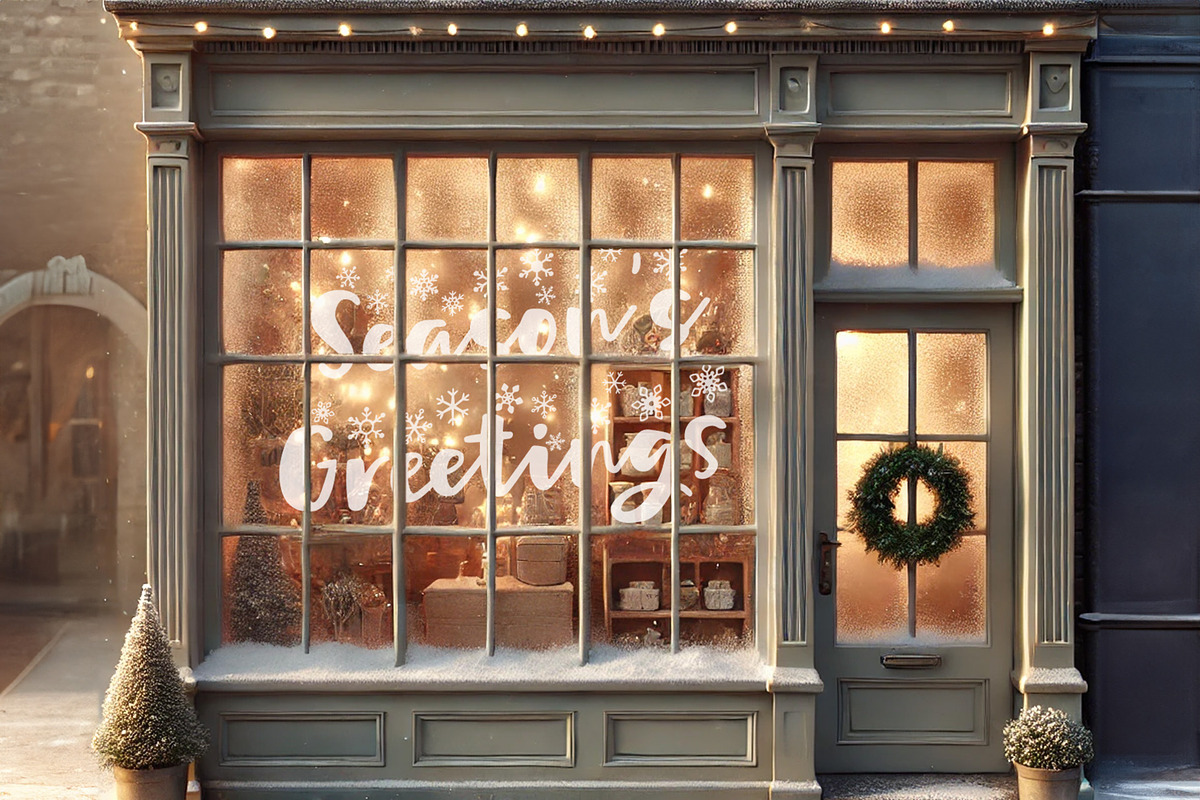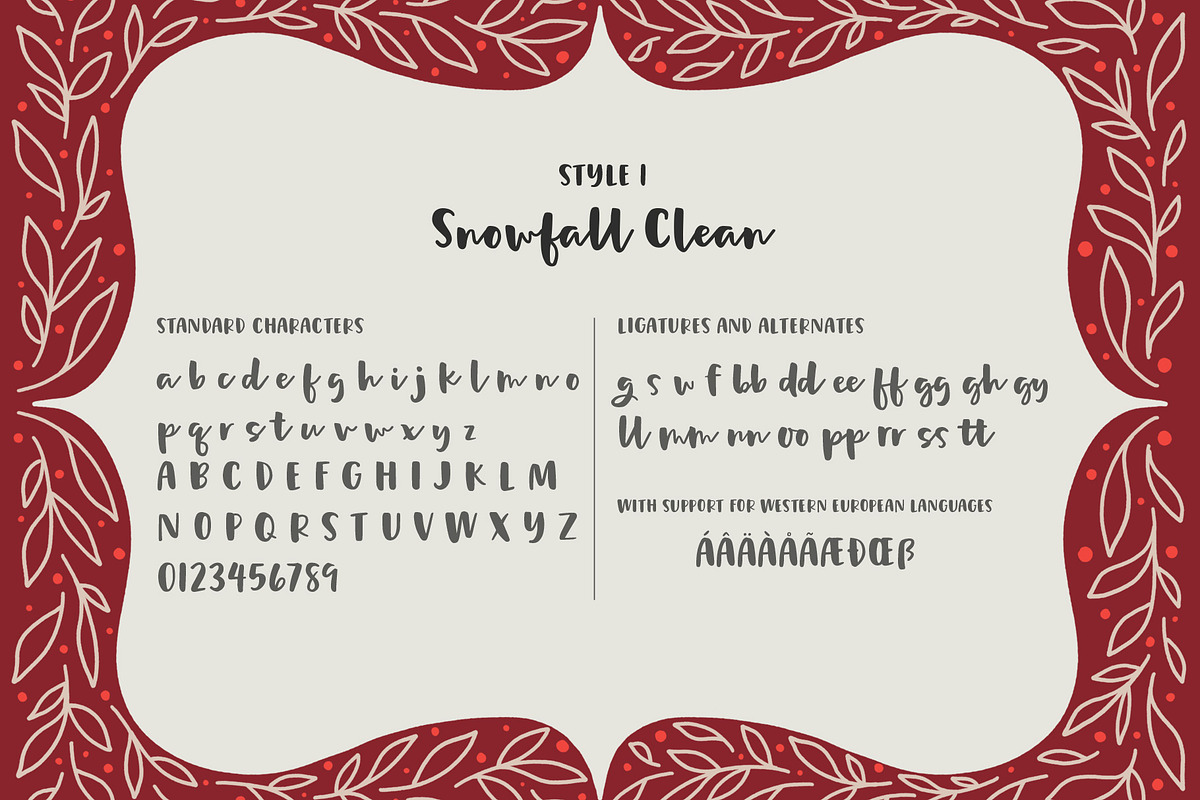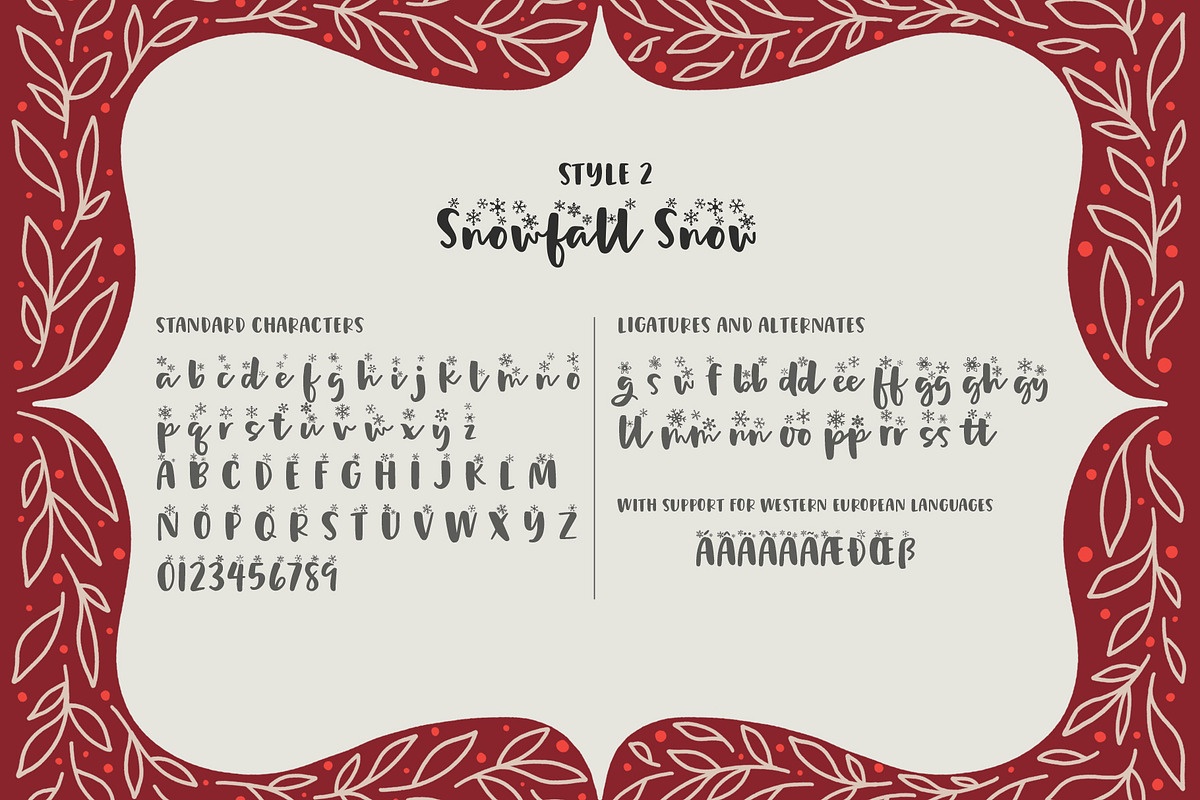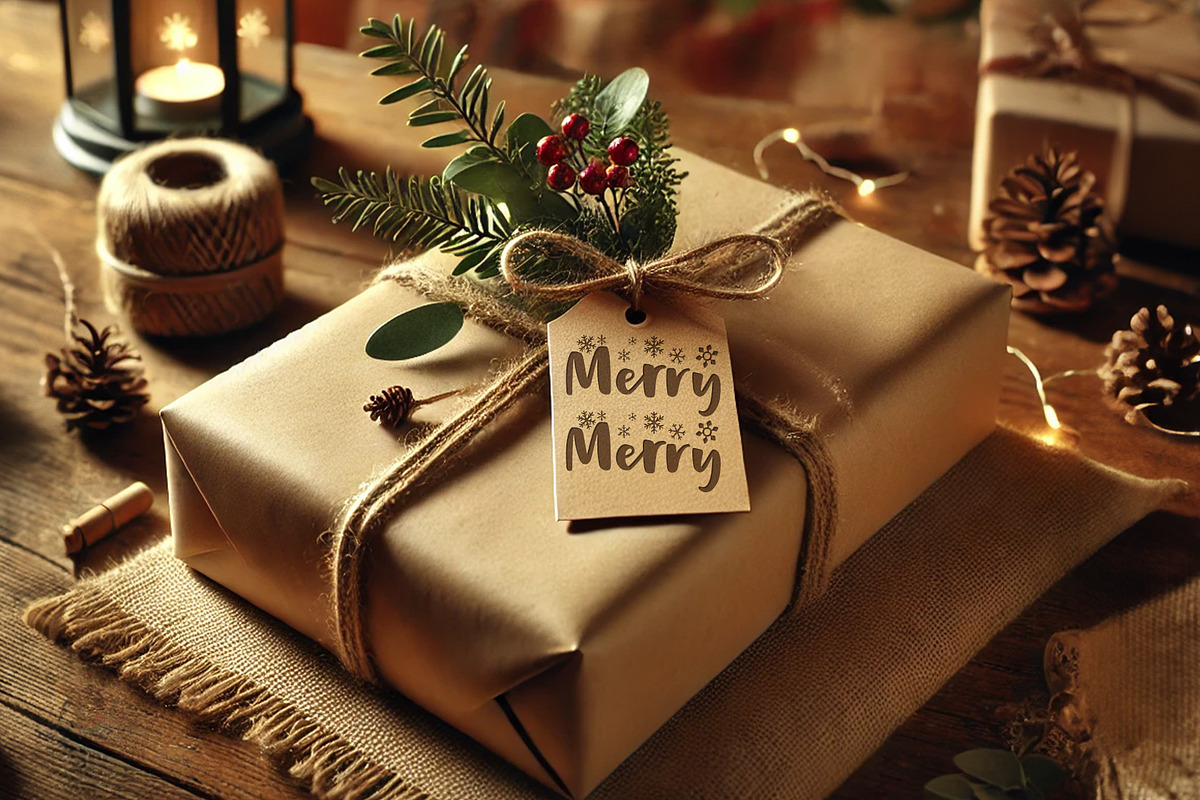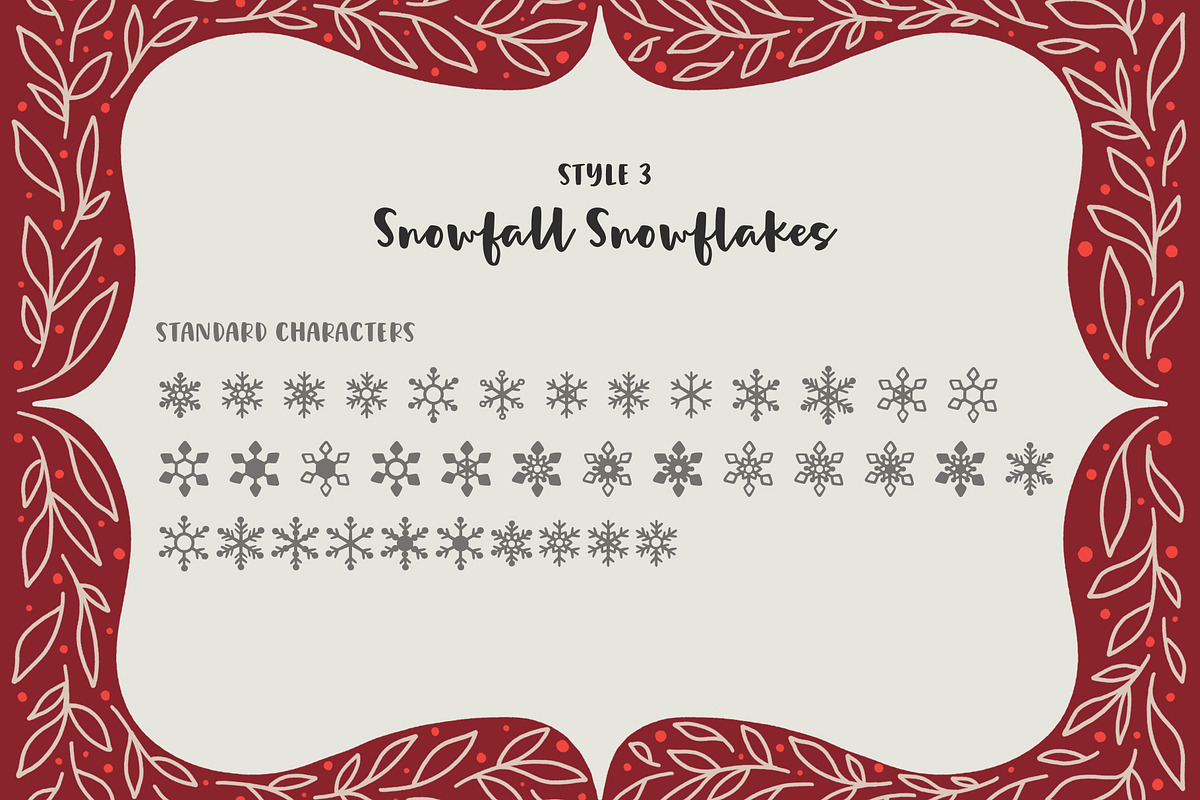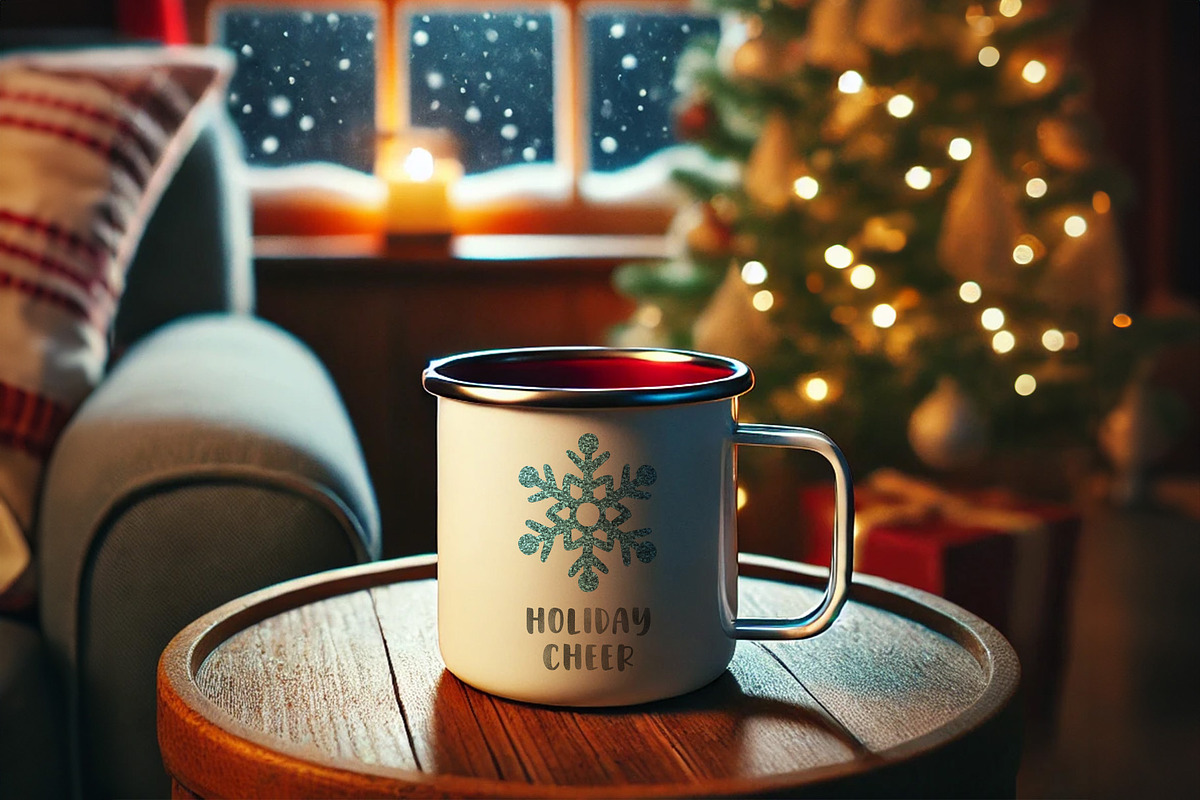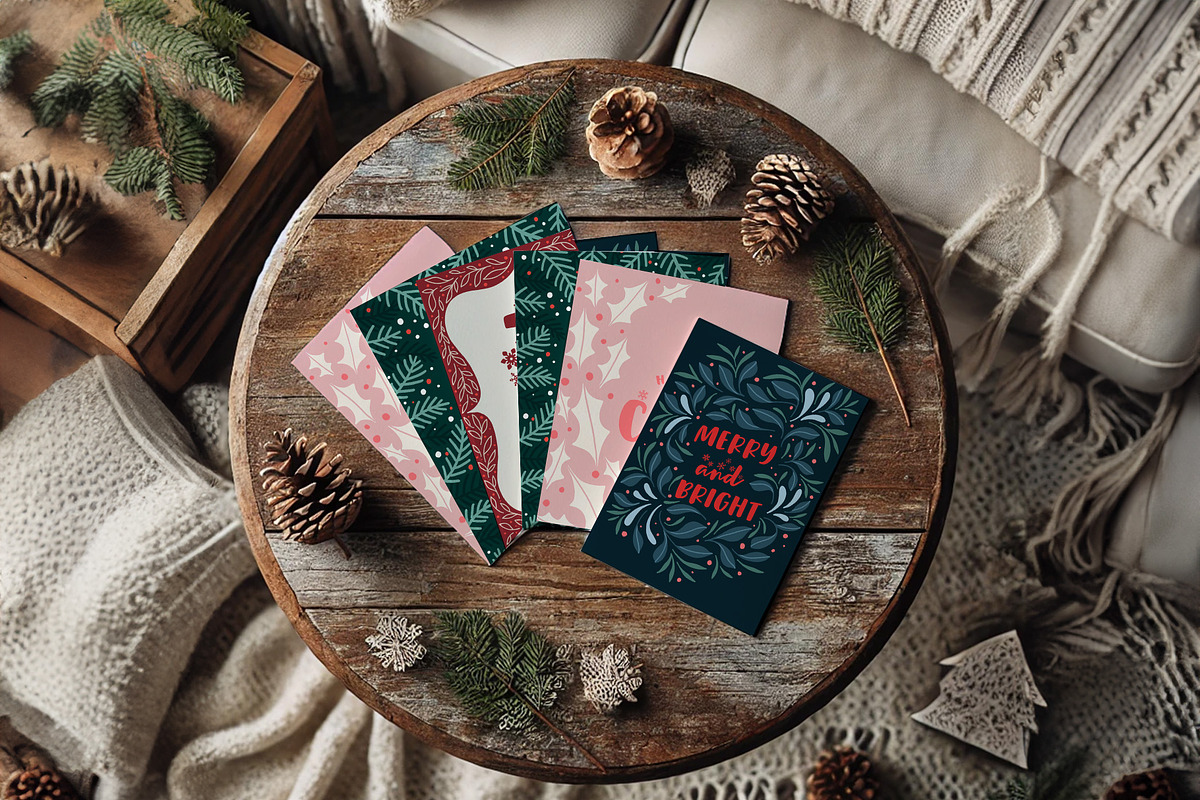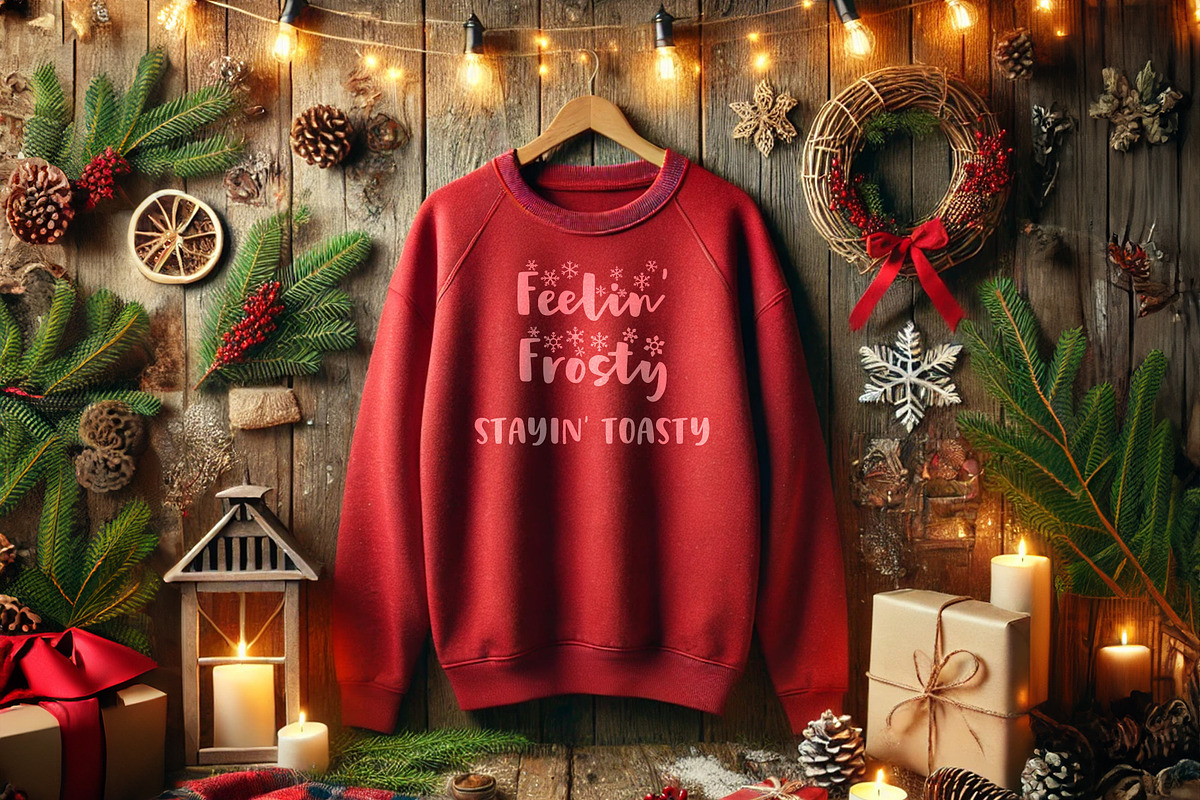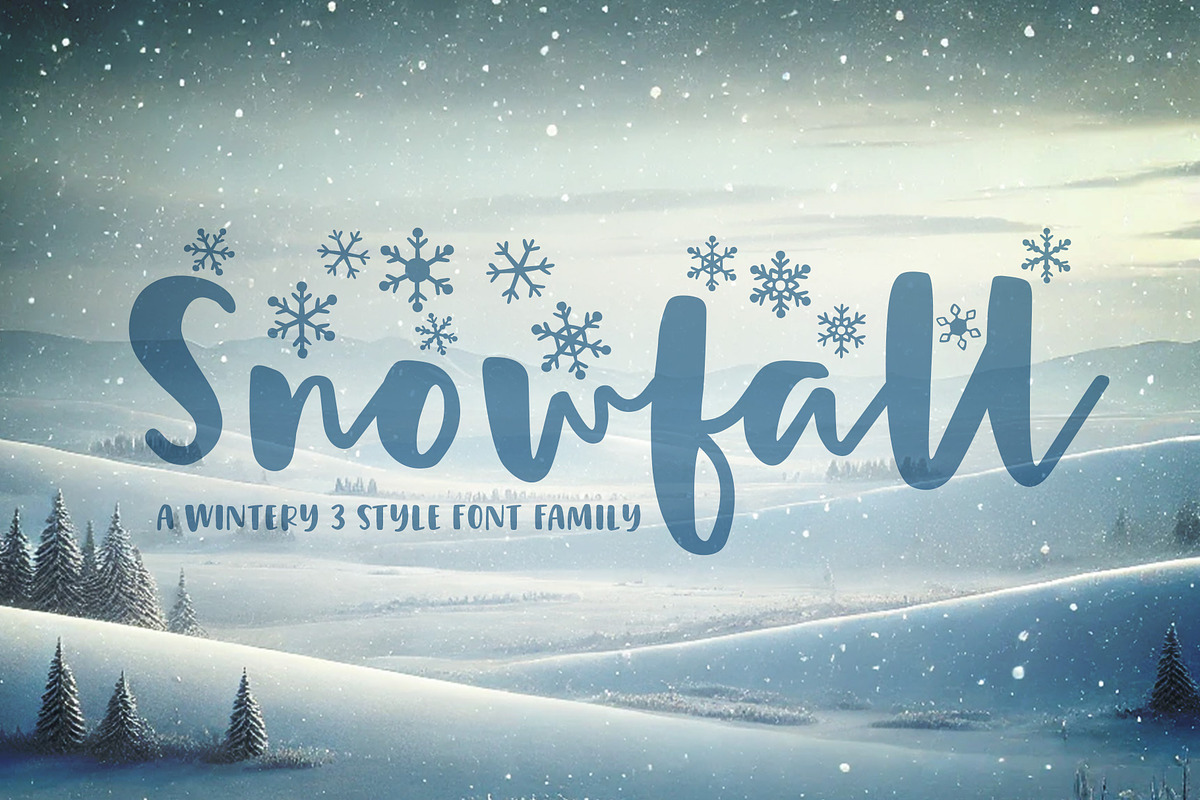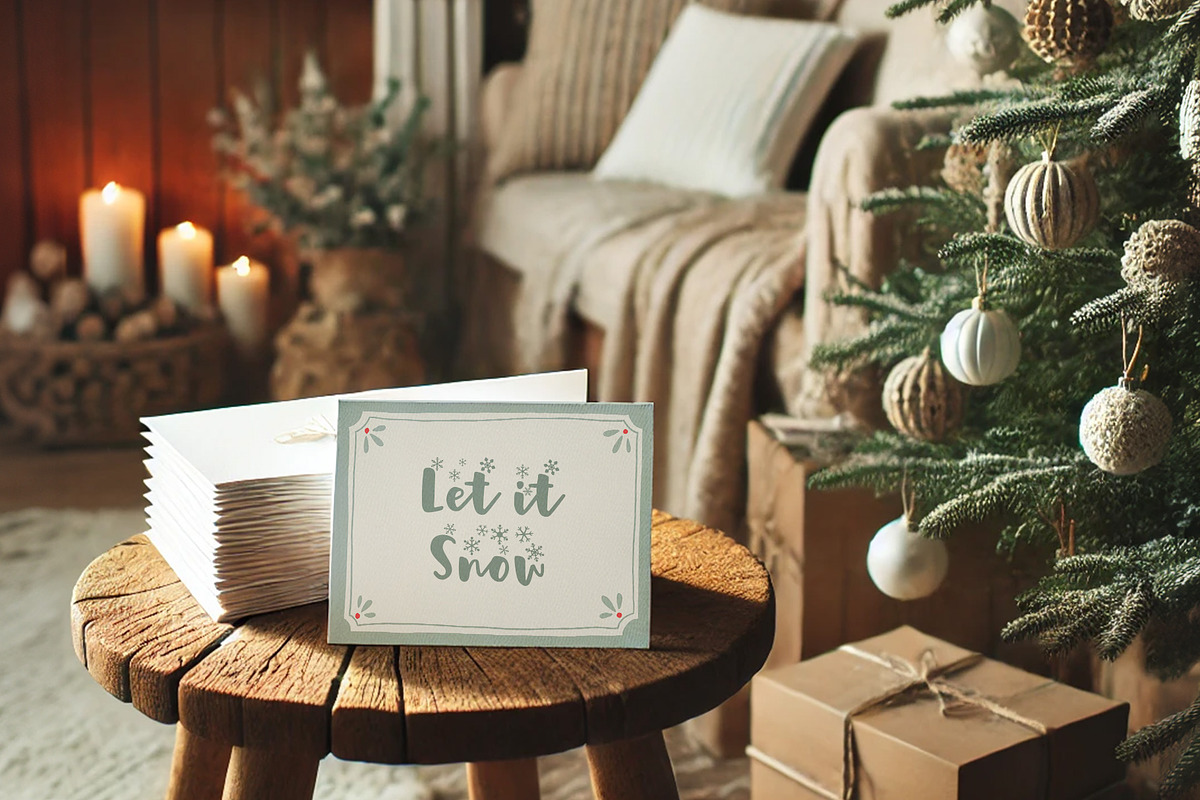
Snowfall Handwritten Script
Capture the magic of a soft snowfall this season in all of your craft, signage, stationery and digital pieces!
Introducing Snowfall, a wintery 3 style font family!
This brush script font was hand lettered on paper with sumi ink and a round brush, then digitized and meticulously edited to bring the magic of a soft snowfall onto your screen. Each snowflake was also originally drawn by hand, maintaining the charm of organic edges for that handmade allure.
Snowfall Handwritten Script comes as a three style font family: Clean (no snowflakes), Snow (snowflakes above all letters and numbers) and Snowflakes (a symbols font composed of 31 unique snowflakes). All fonts are PUA encoded for easy access to additional features (ligatures and alternates).
Includes support for Western European languages